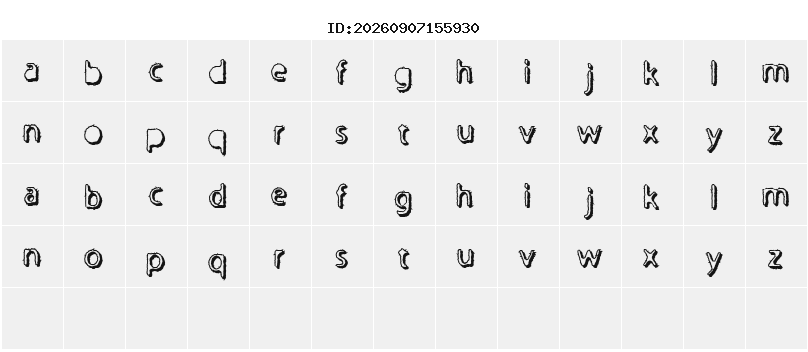
• Font Name: Undertaker
• Designer: Fred - 28fonts
• Manufacturer: 28fonts
About Undertaker.ttf
Undertaker.ttf is a modern, elegant sans-serif font designed for ultimate readability and visual harmony. Perfect for branding, headlines, web design, and print materials.